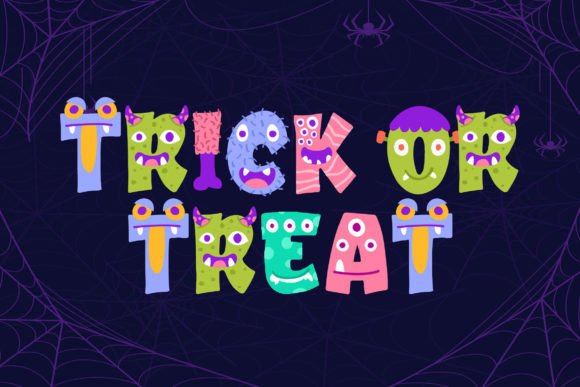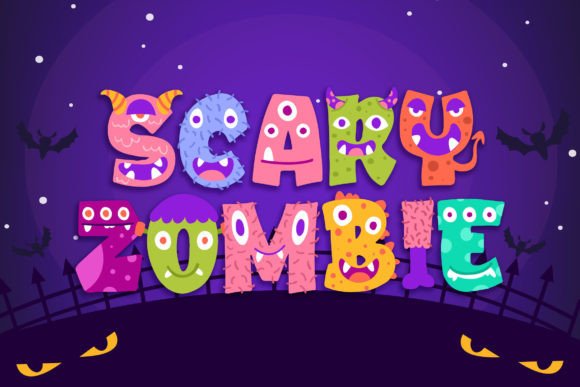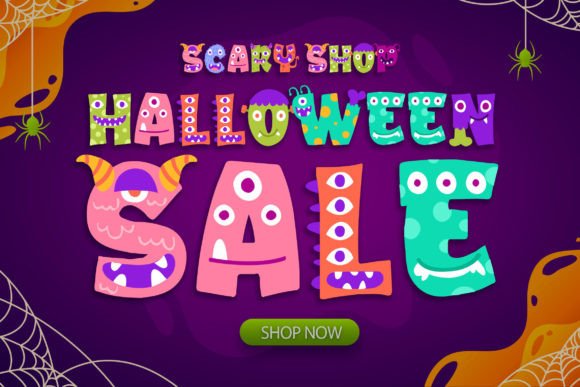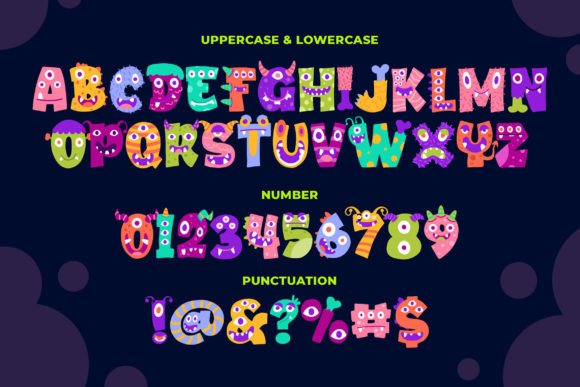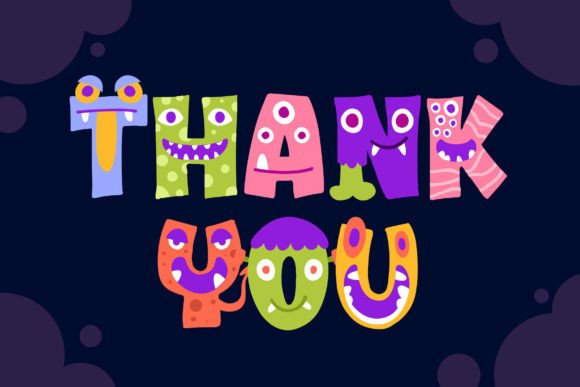
Introduction to Monster Ground Font
Have you ever stared at a blank canvas, feeling the pressure of bringing a creative project to life? The blank space can be daunting, but it’s moments like these that spark our imagination. For designers, the search for the perfect font can be just as thrilling as the final reveal. And what’s more exciting than discovering a font that adds an extra layer of magic to your design?
Enter Monster Ground Font, a vibrant and playful decorative font that’s sure to elevate your next design project. This colorful font is perfect for making a statement, and its transparent background makes it easy to integrate into any design. With Monster Ground Font, you can add a touch of whimsy and personality to your work, making it a valuable resource for any designer looking to take their designs to the next level.
Key Features of Monster Ground Font
- High-quality design resource ideal for creative projects, offering a unique and bold aesthetic.
- Features a transparent background, making it easy to overlay onto different backgrounds and designs.
- Designed with precision, ensuring crisp and clear typography at any resolution, including high-resolution displays.
- Available in a range of sizes, from small to large, making it versatile for use in various creative contexts.
- Perfect for designers and artists looking for a distinctive and eye-catching font to elevate their work, ideal for logos, graphics, and more.
Honest Review: Monster Ground Font
As a designer, I’m always on the lookout for unique and high-quality design resources to elevate my creative projects. The Monster Ground Font has caught my attention, and I’m excited to share my honest review.
What works well: ✨ This font has a bold and edgy feel that’s perfect for designs that require a bit of attitude. The high-quality design is evident in every detail, making it a great choice for professional projects. The transparent background also makes it easy to use in various design contexts.
- High-quality design that’s perfect for professional projects
- Bold and edgy feel that’s great for designs that require attitude
- Transparent background for easy use in various design contexts
Limitations: ⚠️ While the font is high-quality, it may not be suitable for all design projects. The bold and edgy feel may not be the best fit for more subtle or delicate designs. Additionally, the font may not be as versatile as some other design resources.
Overall impression: The Monster Ground Font is a great addition to any designer’s toolkit. Its unique style and high-quality design make it a great choice for creative projects that require a bit of attitude. While it may have some limitations, it’s definitely worth considering for designers looking for a bold and eye-catching font.
The Monster Ground Font is a high-quality design resource perfect for any creative project. With its unique and eye-catching style, this font is sure to elevate your designs and leave a lasting impression.
For the best results, use the Monster Ground Font with a transparent background to create a bold and eye-catching design. You can also use it in combination with other design elements, such as graphics and images, to add depth and interest to your project.
The Monster Ground Font is perfect for a variety of creative projects, including social media graphics, posters, and brochures. Its unique style and high-quality design make it a great choice for anyone looking to add a touch of sophistication and elegance to their designs.